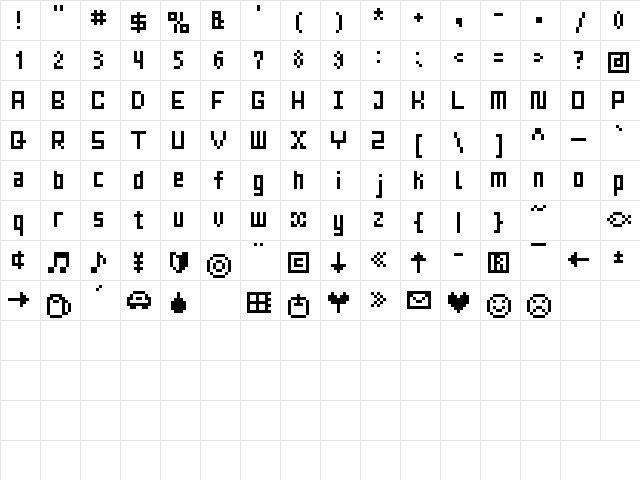
Mrs Kichinto Regular
Design Context for Mrs Kichinto
Mrs Kichinto is a composed and adaptable typeface that performs quietly and consistently across a wide range of design contexts.